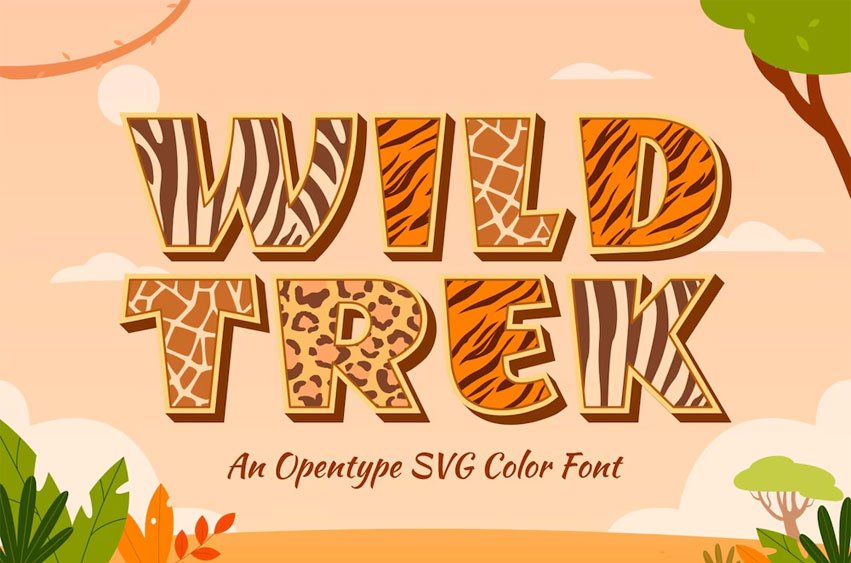
Wild Trek Font is a bold font inspired by the untamed wilderness of the African safari. Each letter is adorned with fierce animal prints, evoking the raw beauty of the savannah.
Perfect for adventurous designs, wildlife documentaries, or anything needing a touch of safari flair, Wild Trek brings the spirit of Africa to life with its bold and adventurous style.